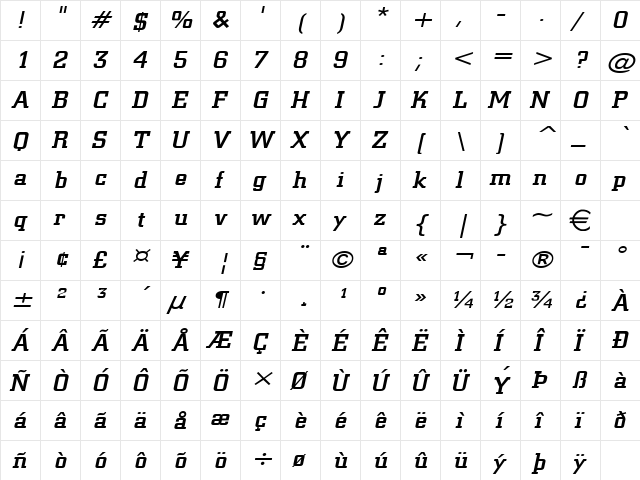
Geo957Wide Italic
Design Context for Geo957Wide Typeface
Geo957Wide is a composed and adaptable typeface that performs quietly and consistently across a wide range of design contexts. The slanted form adds forward momentum and visual energy.
Pro Tip: Use Geo957Wide for emphasis, pull quotes, and subheadings where its slanted energy can add rhythm to the layout.